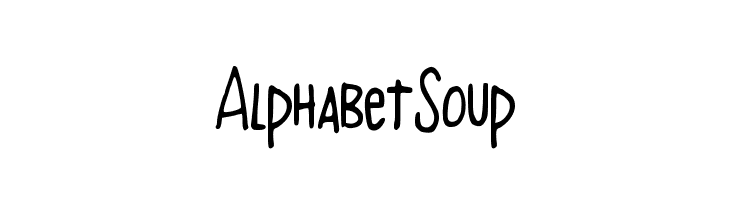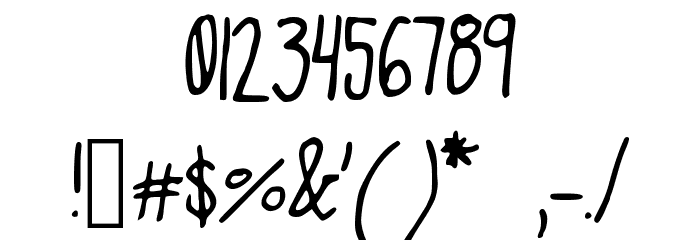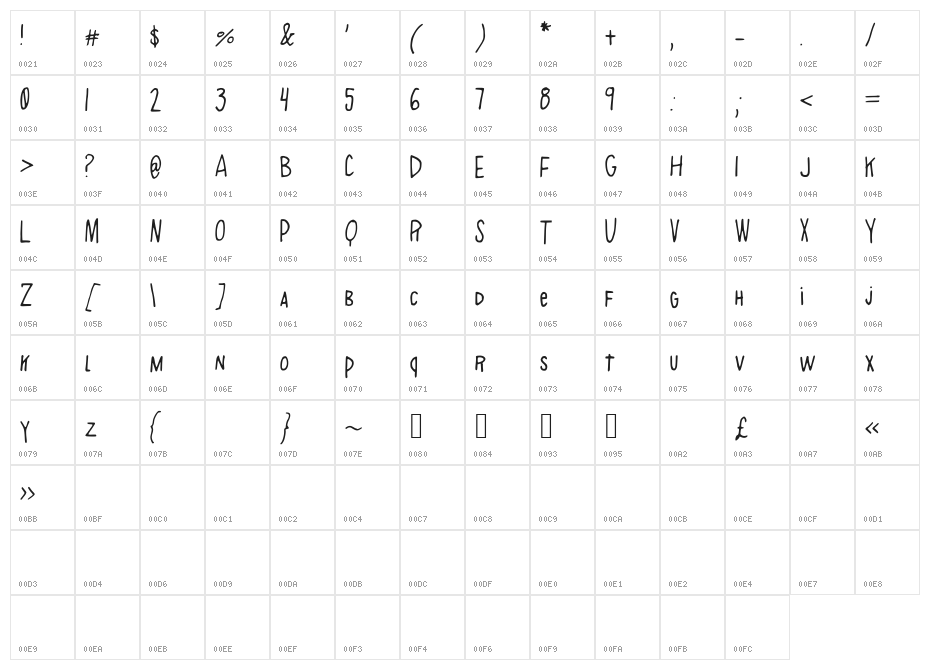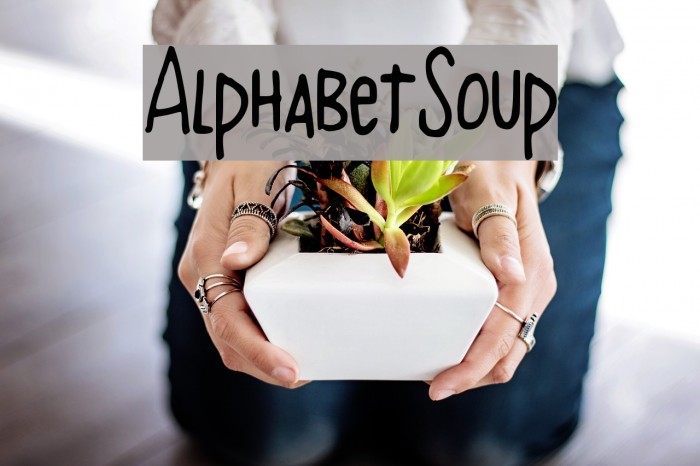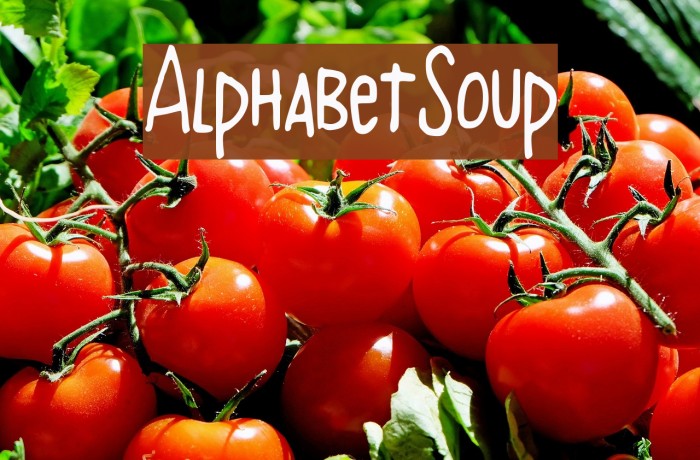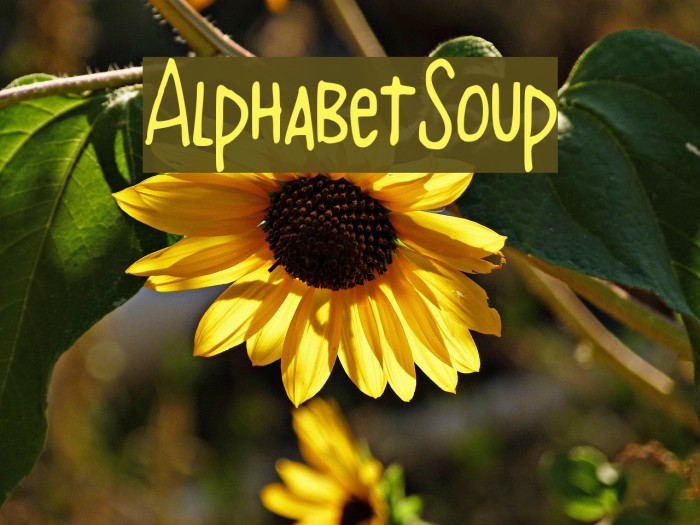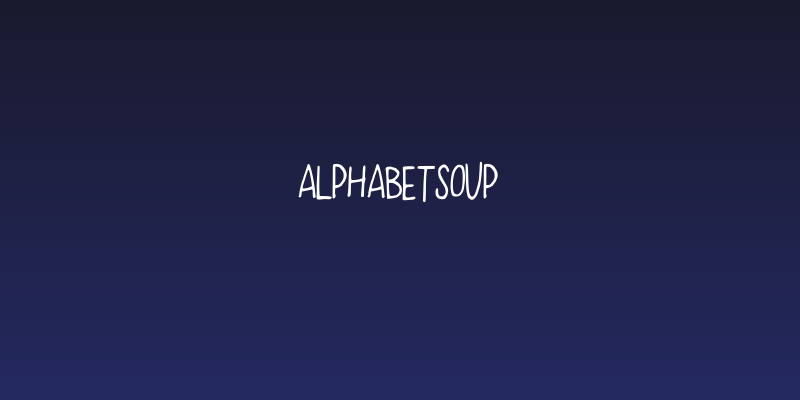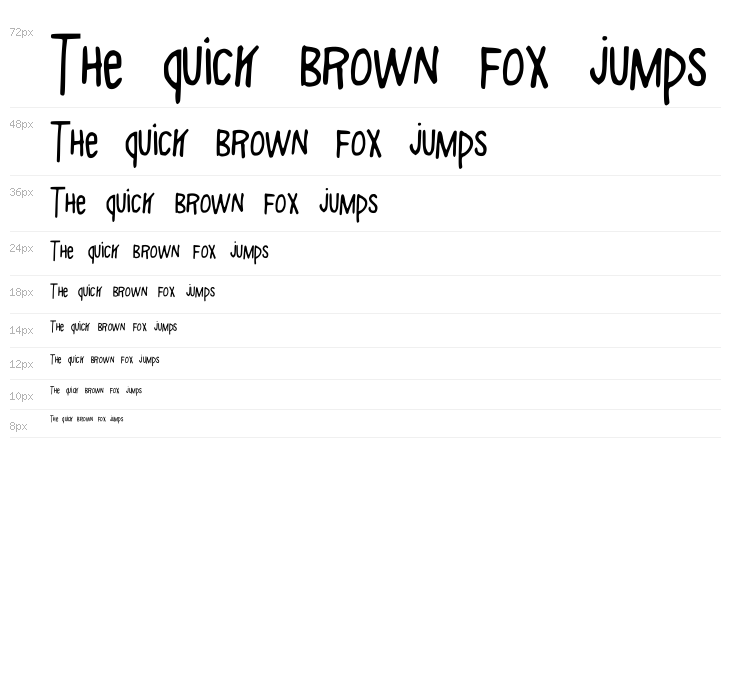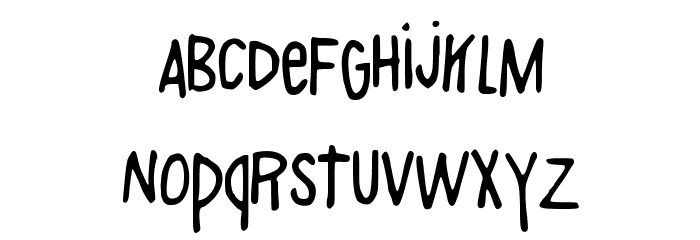
AlphabetSoup Font
AlphabetSoup Description
This playful and whimsical font features a handwritten style with a casual and informal appearance. The letters are slightly irregular, giving it a charming and approachable feel. The uppercase and lowercase characters maintain a consistent flow, with rounded edges and a slight tilt that adds to its friendly nature. Numbers and special characters follow the same playful design, making it versatile for various creative projects. The overall look is reminiscent of doodles or notes, perfect for adding a personal touch to any design.